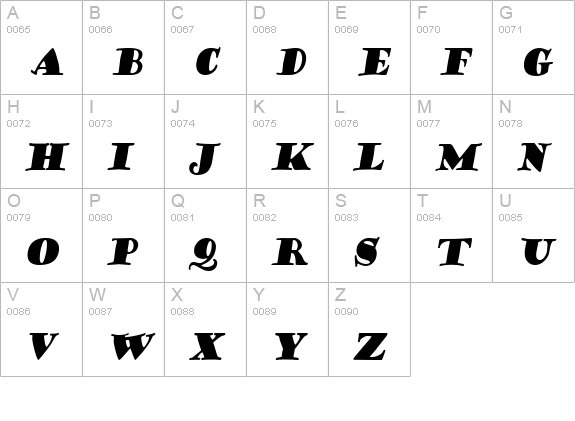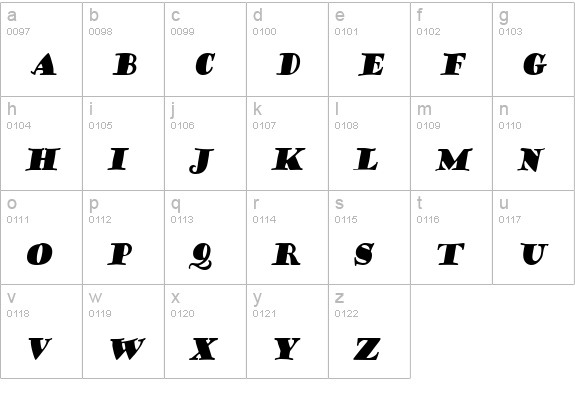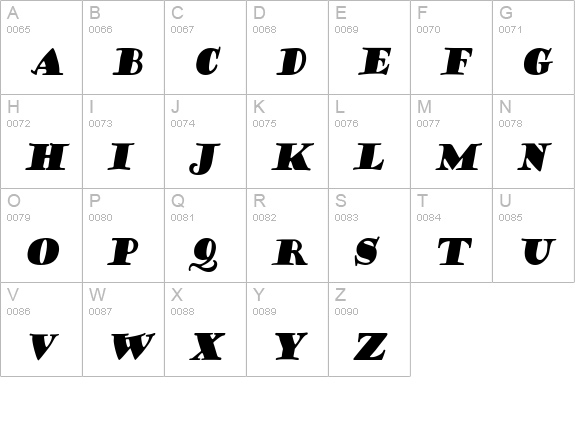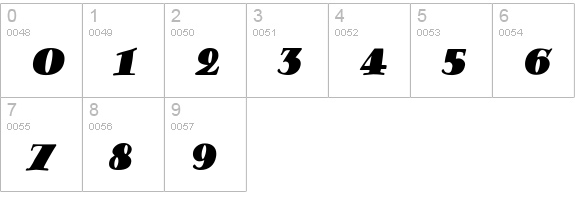
CoffeeSackCondensed Italic Font Details
CoffeeSackCondensed Italic is a distinctive, italic variant in the CoffeeSackCondensed typeface family \xE2\x80\x94 well suited to design and typography projects.
CoffeeSackCondensed Italic is a stylish and modern font that exudes sophistication and elegance. The italicized design adds a touch of flair and creativity to any project, making it perfect for branding, invitations, and more. With its condensed structure, this font is ideal for fitting lots of text into a small space while maintaining readability. One of the best things about CoffeeSackCondensed Italic is that it is completely free to download. You can easily access this beautiful font at FontsMarket.com and start using it in your designs right away. Whether you're a professional designer or a creative enthusiast, this font is sure to add a touch of class to your projects. Don't miss out on the opportunity to enhance your work with the unique charm of CoffeeSackCondensed Italic.